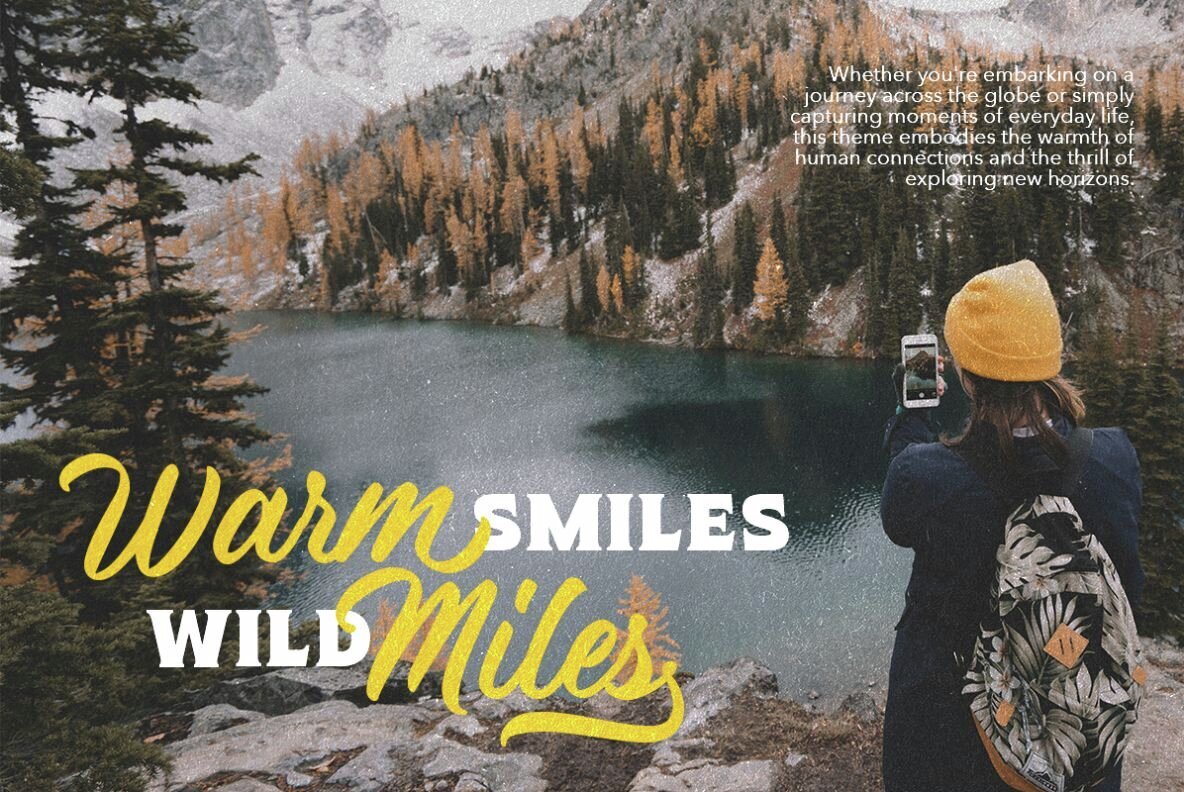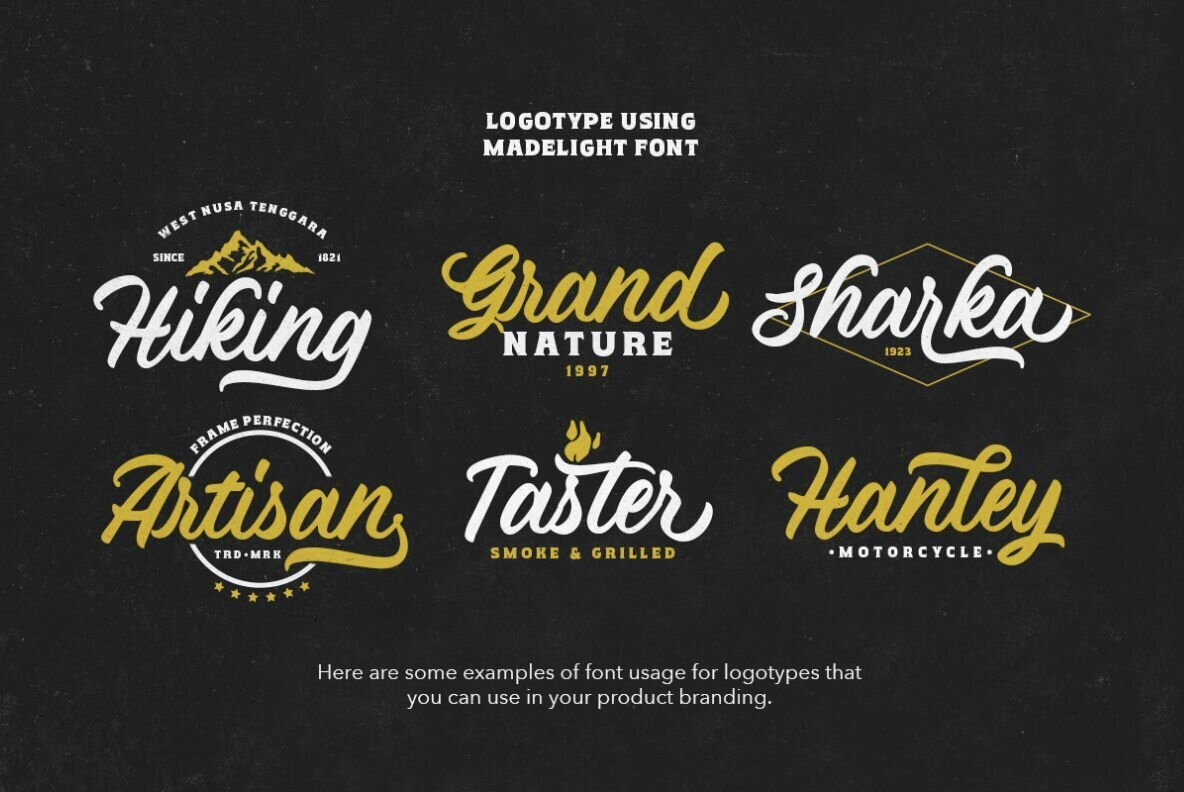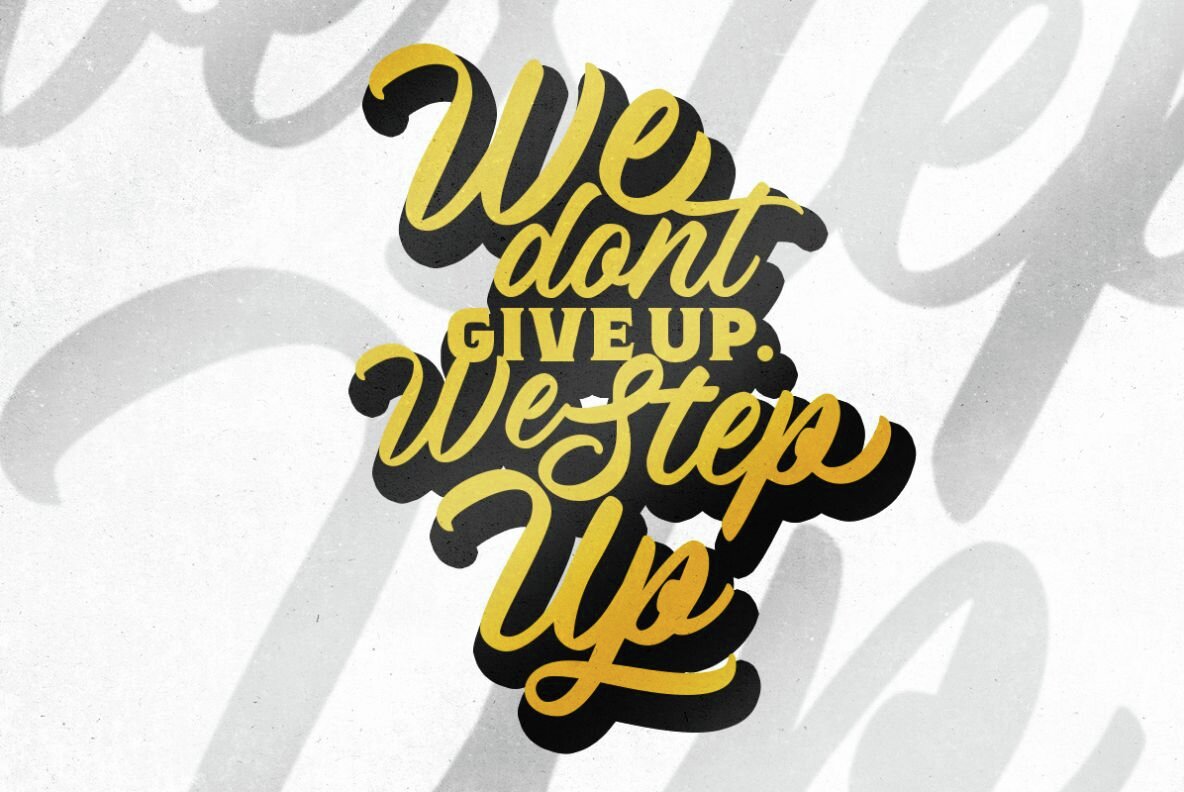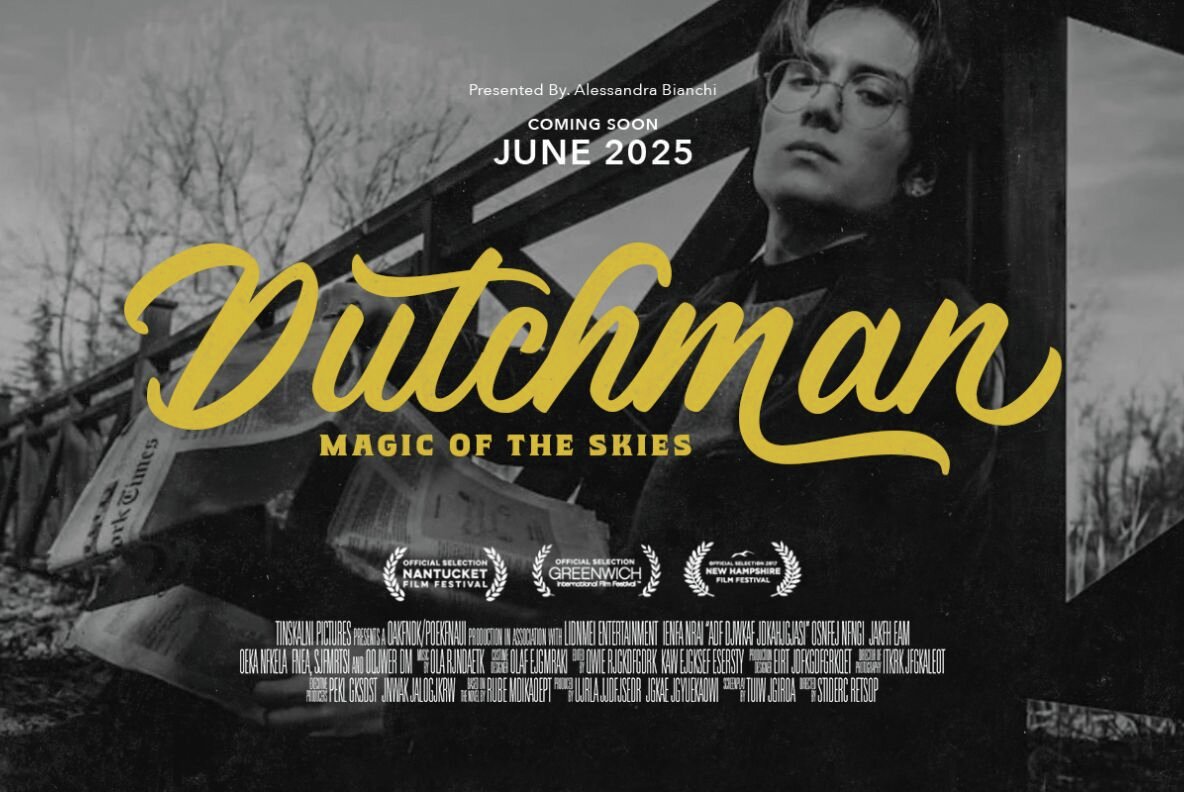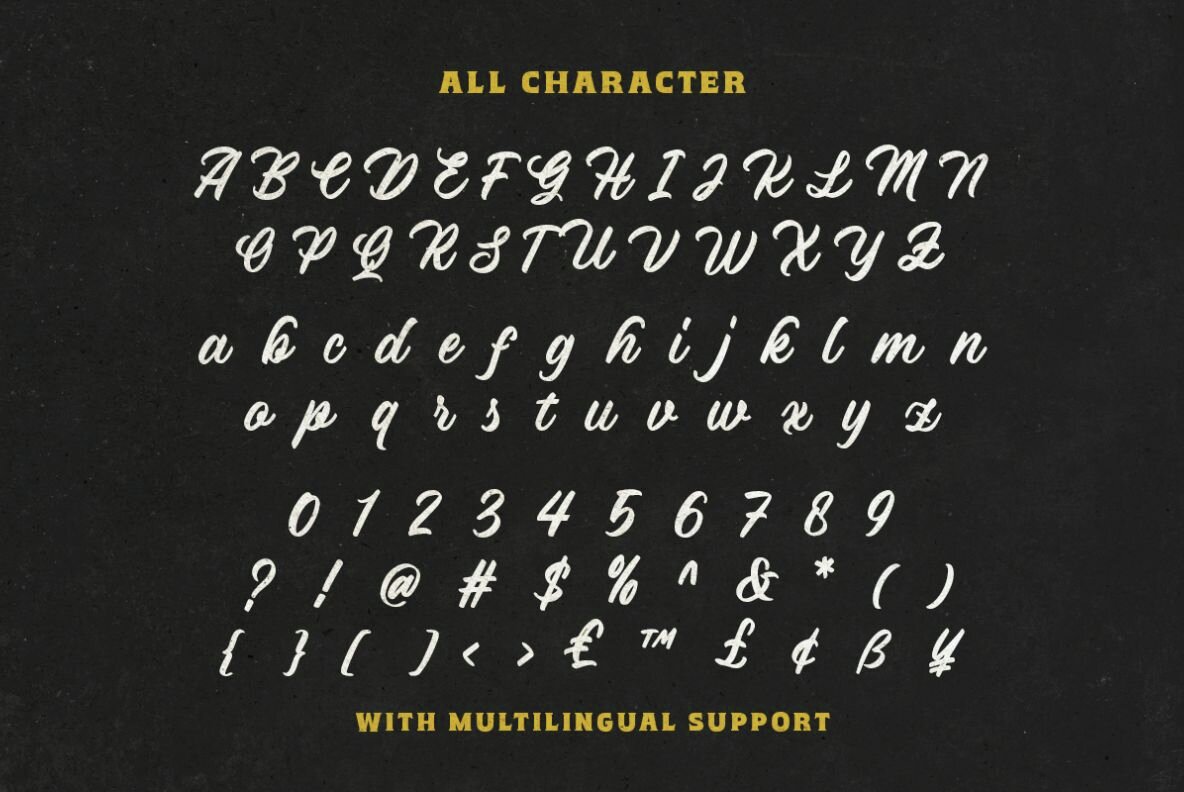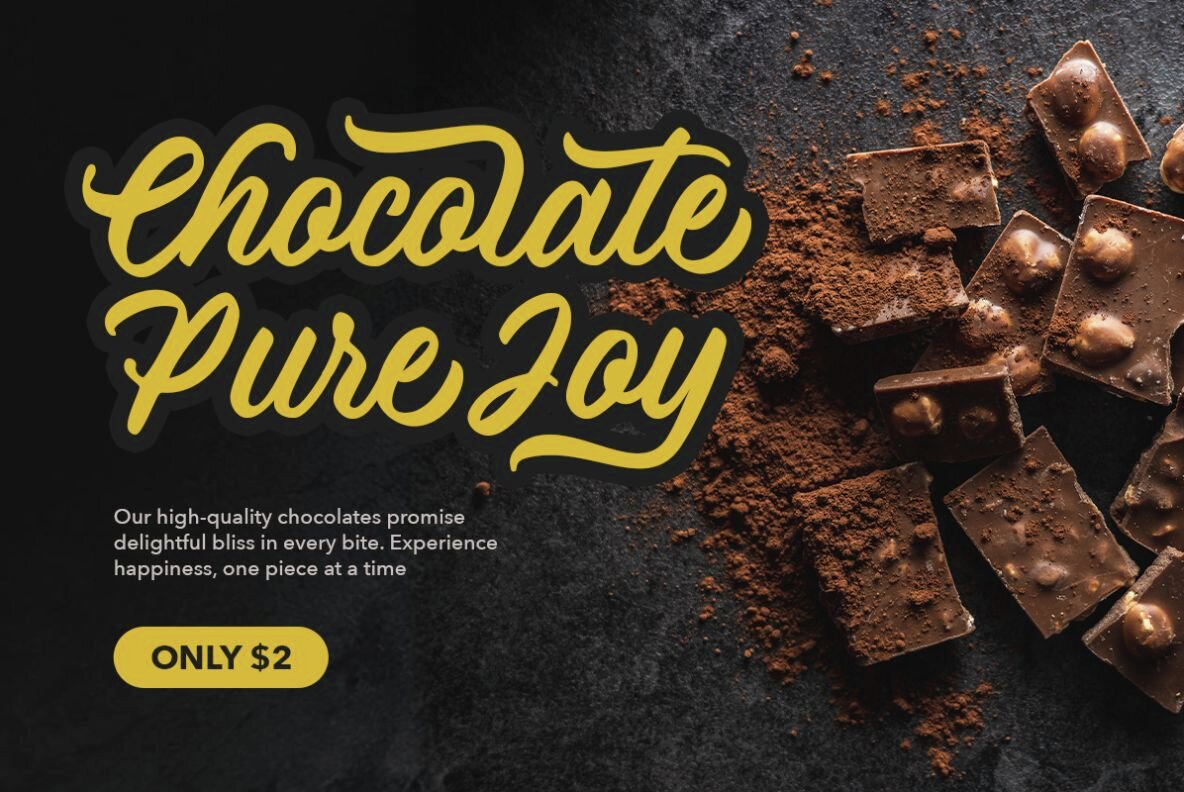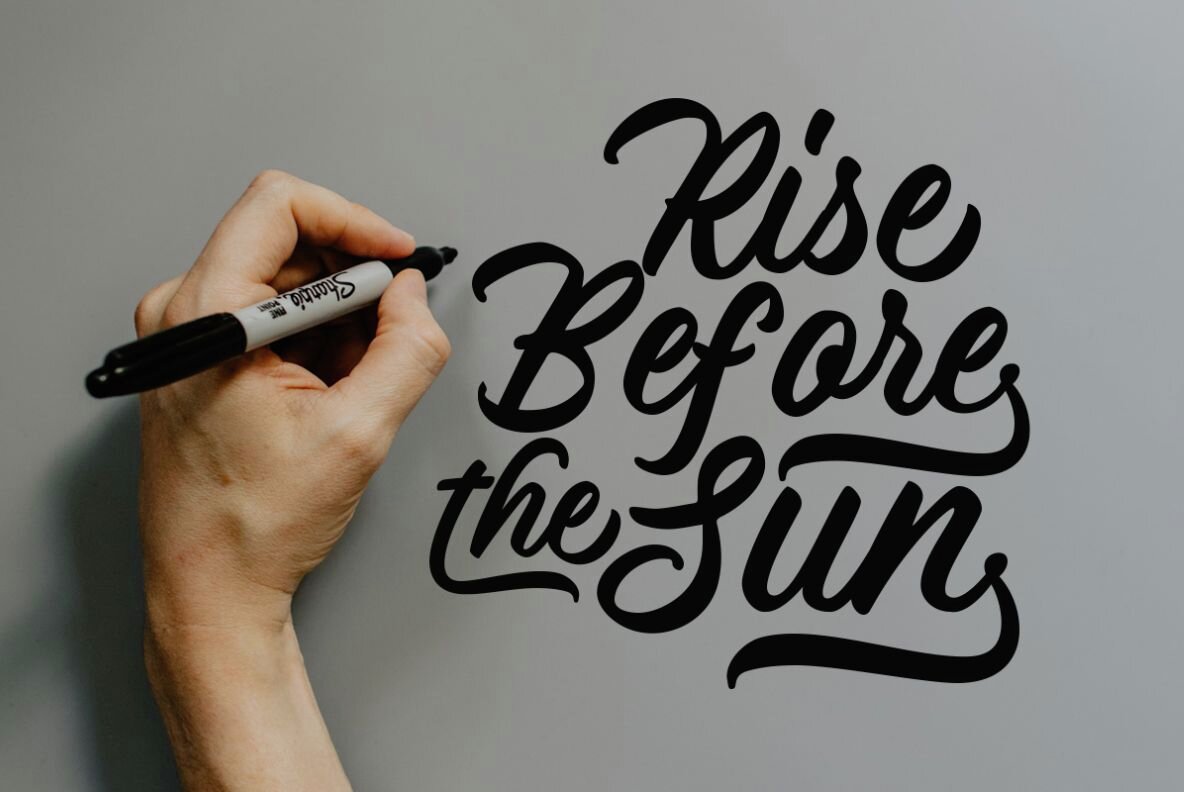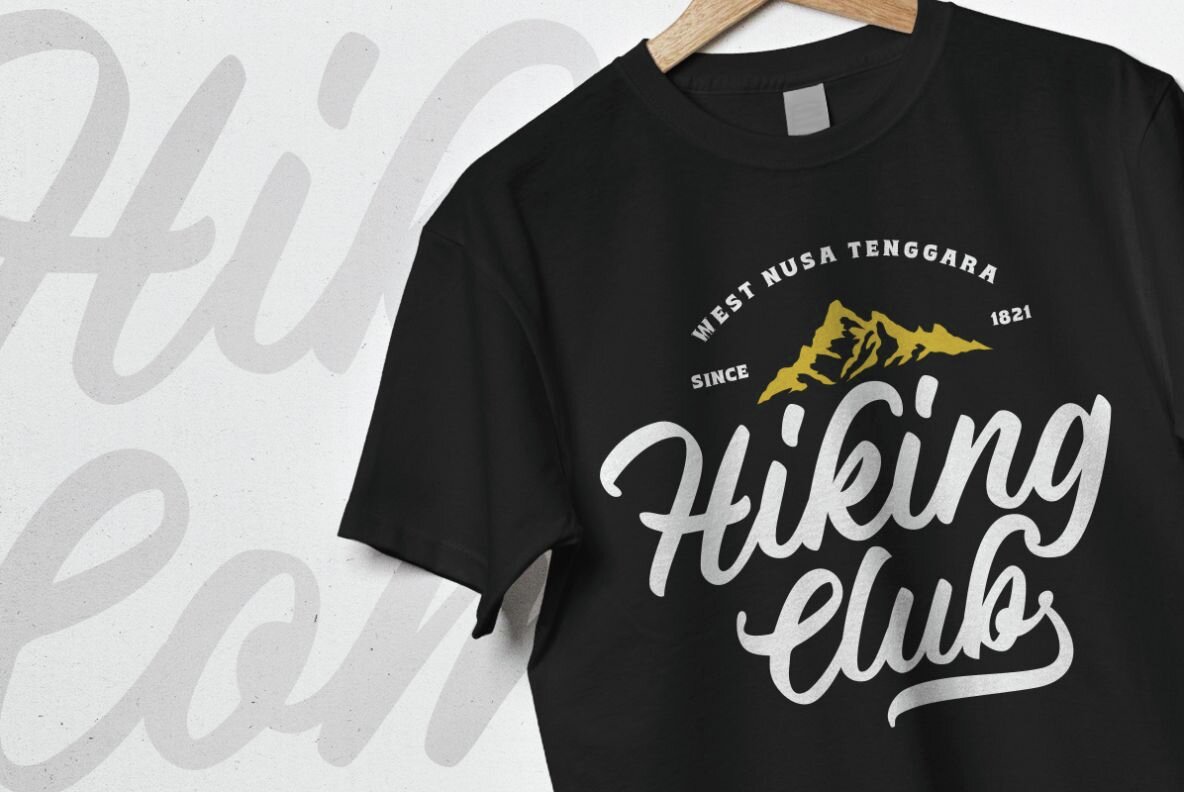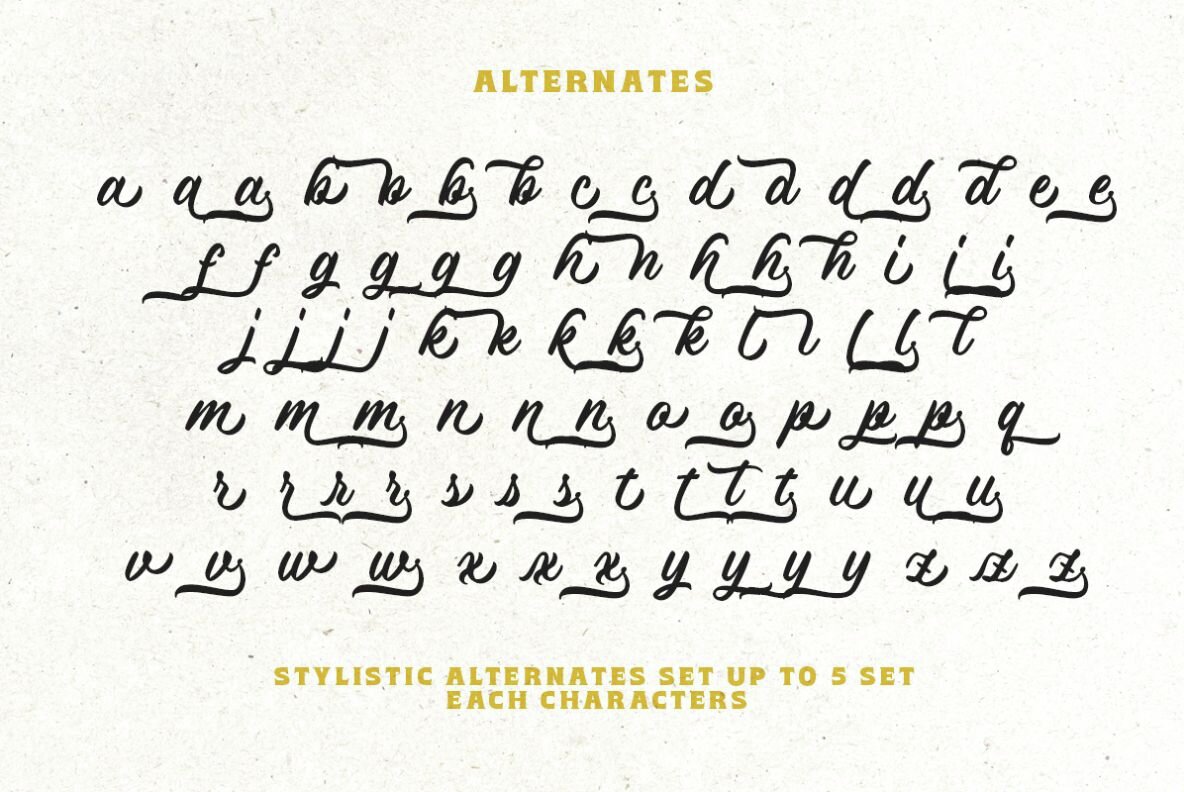
Madelight Font
Madelight Regular
Madelight is a retro display script with up to 5 sets of alternates each characters that will make your design looks cool and stand out. You can use this font for any designs such as logo, branding, apparel, and merchandise. This font also support multilingual!